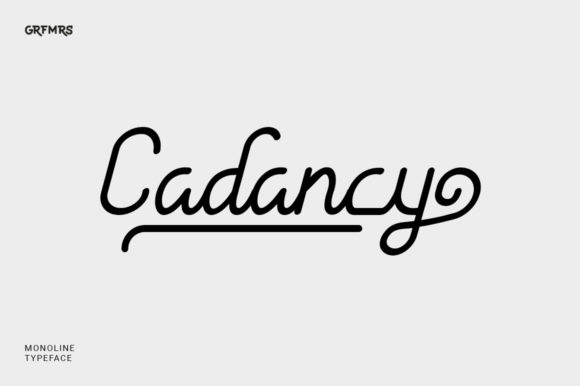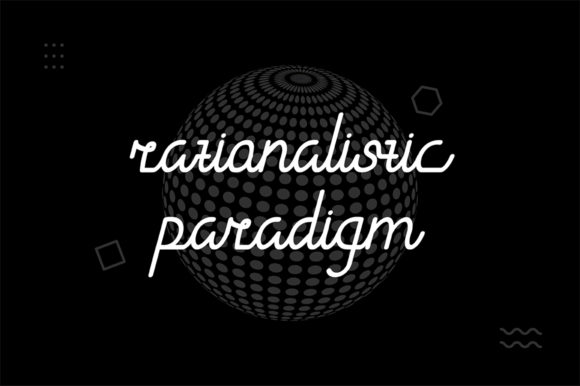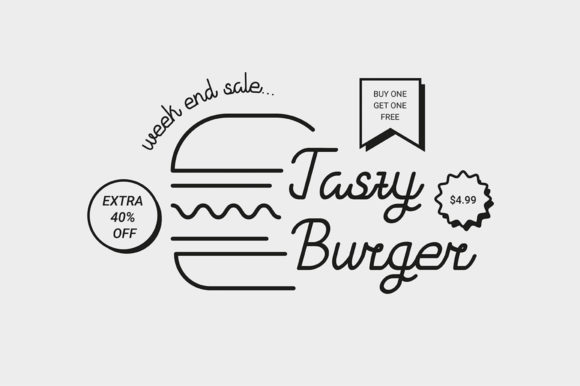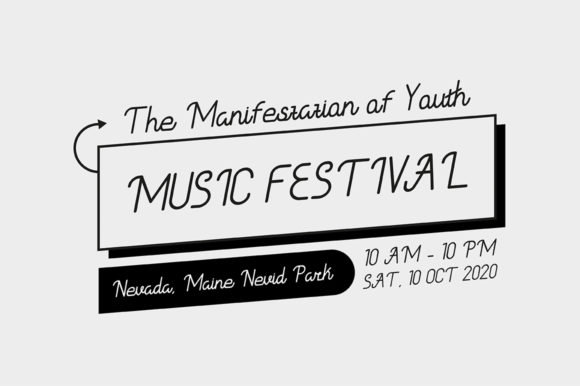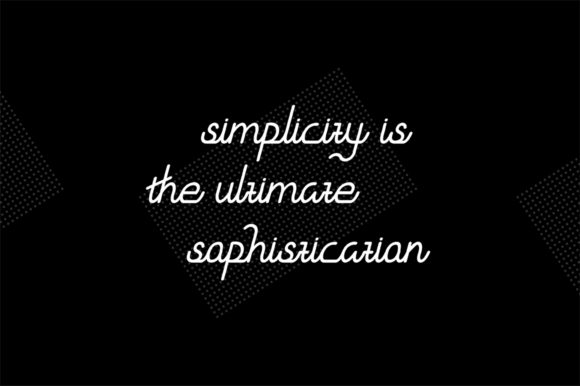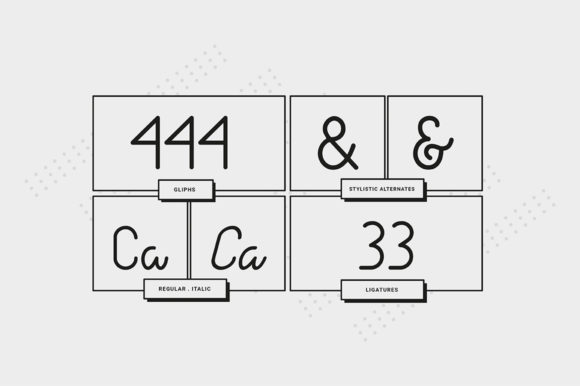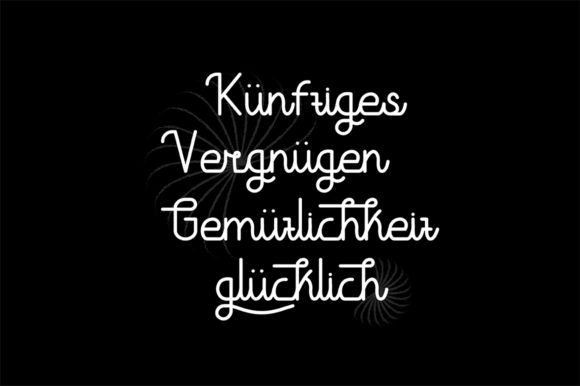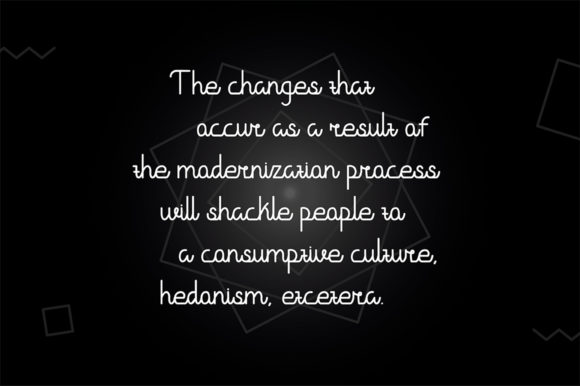
Cadancy Font
About Cadancy Font
Cadancy is a font that exudes delicate beauty and elegance, making it a perfect choice for a variety of design projects. Its delicate, flowing handwritten style enhances your creations, adding a touch of grace that captivates the eye.
With its beautiful and well-balanced characters, Cadancy brings a sense of sophistication and charm to your designs. Whether you’re working on wedding invitations, thank you cards, quotes, greeting cards, logos, business cards, or any other project, this font elevates each creation with its effortless beauty.
Cadancy’s handwritten essence adds a personal and authentic touch to your designs, making them feel refined and special. It’s like a gentle dance of pen strokes that infuses your creative ideas with a sense of elegance.
Incorporating Cadancy into your designs allows you to explore a wide range of creative possibilities. Its versatility serves as a canvas for your imagination, empowering you to create visually stunning and captivating designs.
Moreover, Cadancy’s delicate and flowing elements ensure your designs stand out with a graceful and captivating presence. Its unique charm sets your projects apart and makes them come alive.
Add Cadancy to your most creative ideas and notice how it transforms them into spectacular designs that resonate with sophistication and allure.
In summary, Cadancy is more than just a font; it’s a delicately crafted companion that enhances your creative ideas. Embrace its grace and notice how it breathes life into your projects, turning them into works of art. With Cadancy, your designs become true expressions of elegance and flowing beauty, leaving a lasting impact on all who encounter them. Let Cadancy be the font that adds a touch of magic to your designs, creating a world of endless possibilities and capturing the hearts of your audience.